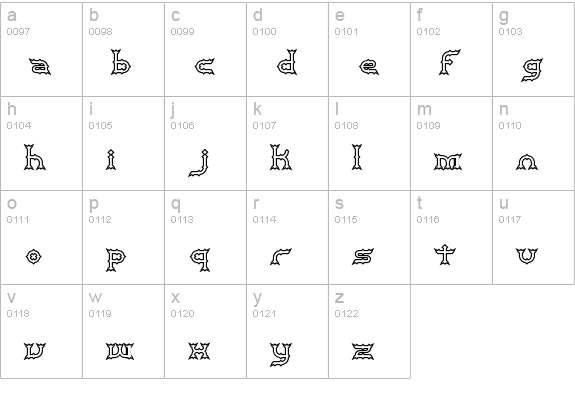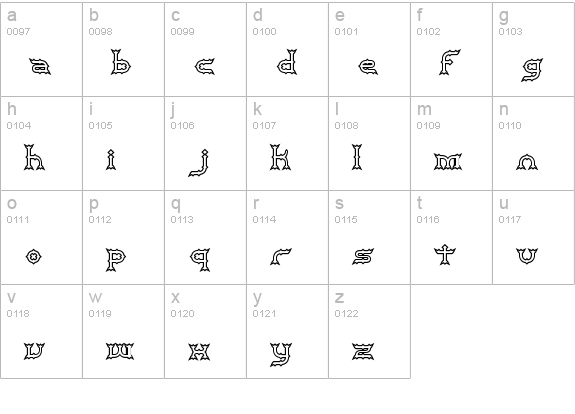
Mincer BRK Font Details
The Mincer BRK font is a versatile and modern typeface that exudes elegance and sophistication. With its clean lines and stylish letterforms, this font is perfect for a wide range of design projects, from branding and advertising to web design and packaging. The Mincer BRK font is available for free download at FontsMarket.com, making it easily accessible to designers and creatives looking to add a touch of class to their work. Whether you're creating a sleek logo or designing a sleek website, the Mincer BRK font is sure to make a bold statement and leave a lasting impression.